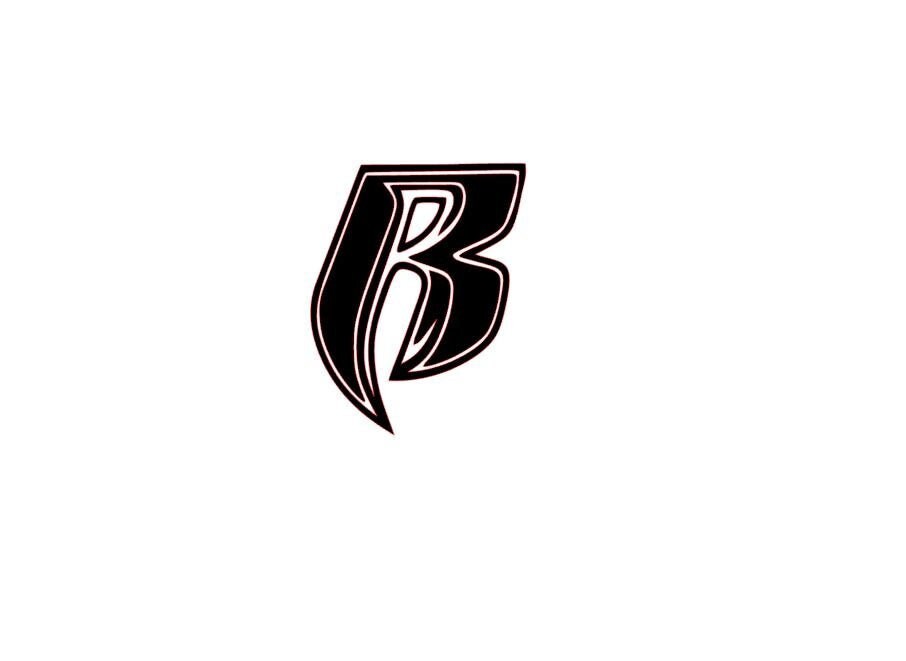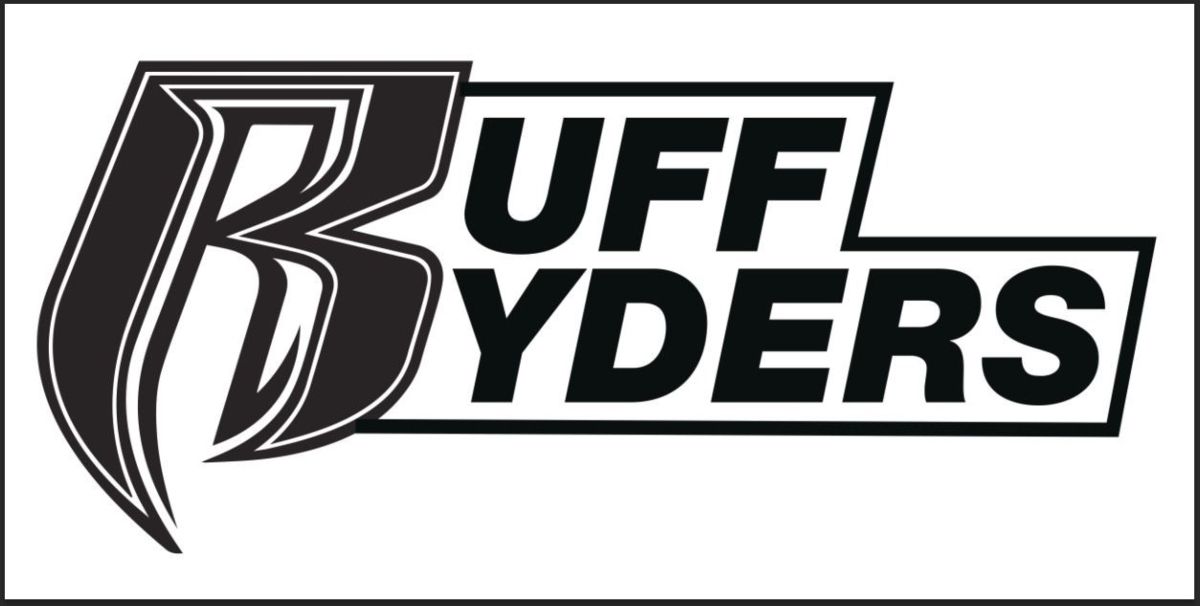
Ruff Ryders Font
Free download of rough rider font. 97 search results for ruff ryders. Rough riders and the redux version are simply the most wildest western looking fonts you'll find. ️ this font has been downloaded 1,000+ times. Released in 2013 by jonathan s.
Free download of rough rider font. Download and install the rough rider font for free from ffonts.net. Looking for the ruff ryders font you see on the side of this bike or something similiar. The rough riders fill font is not meant to be. 97 search results for ruff ryders.
Download more than 10,000 free fonts hassle free, desktop and mobile optimized, around for more than 20. Looking for the ruff ryders font you see on the side of this bike or something similiar. 97 search results for ruff ryders. Released in 2013 by jonathan s. Free download of rough rider font.
Download More Than 10,000 Free Fonts Hassle Free, Desktop And Mobile Optimized, Around For More Than 20.
Looking For The Ruff Ryders Font You See On The Side Of This Bike Or Something Similiar.